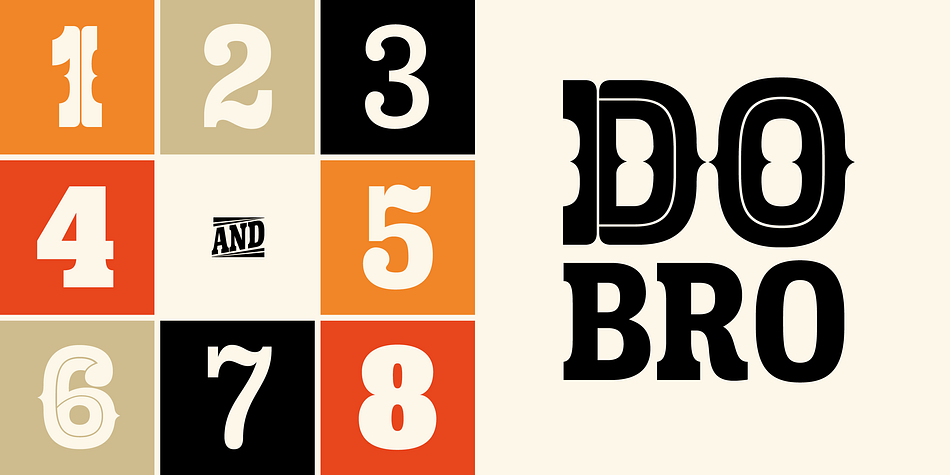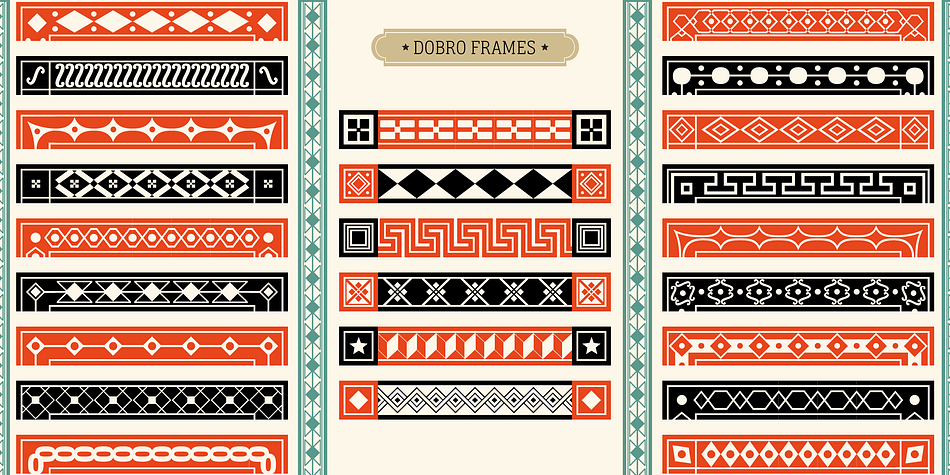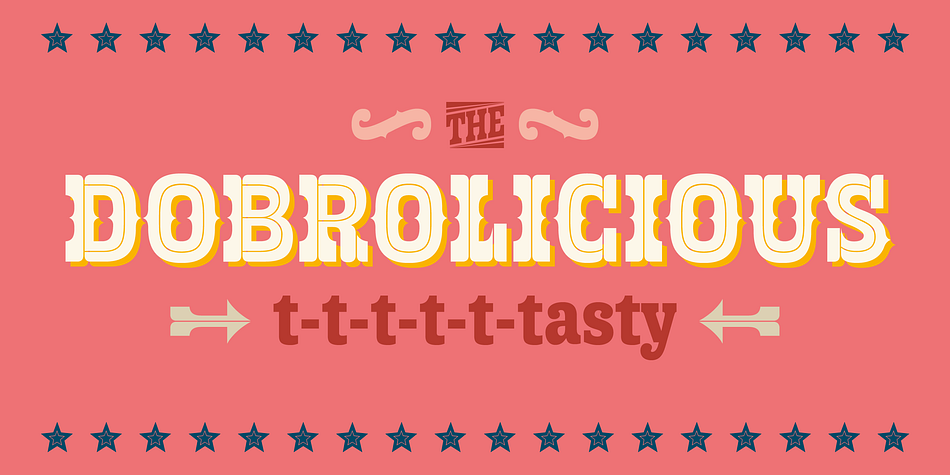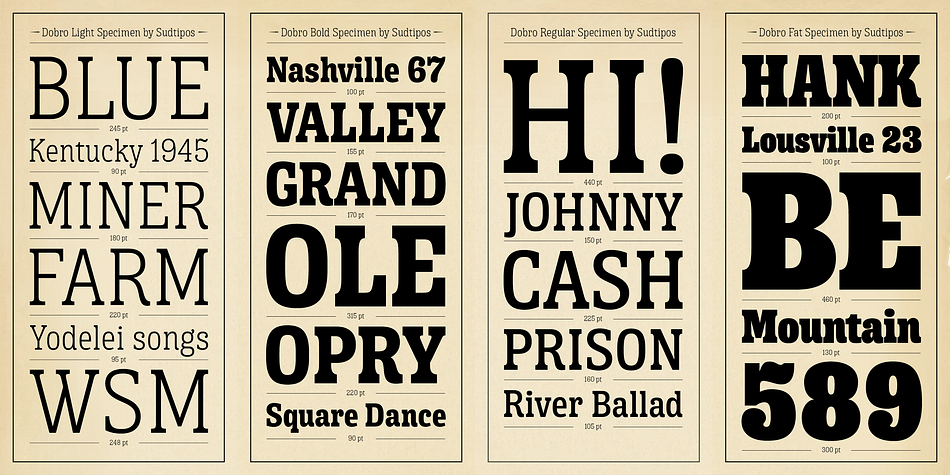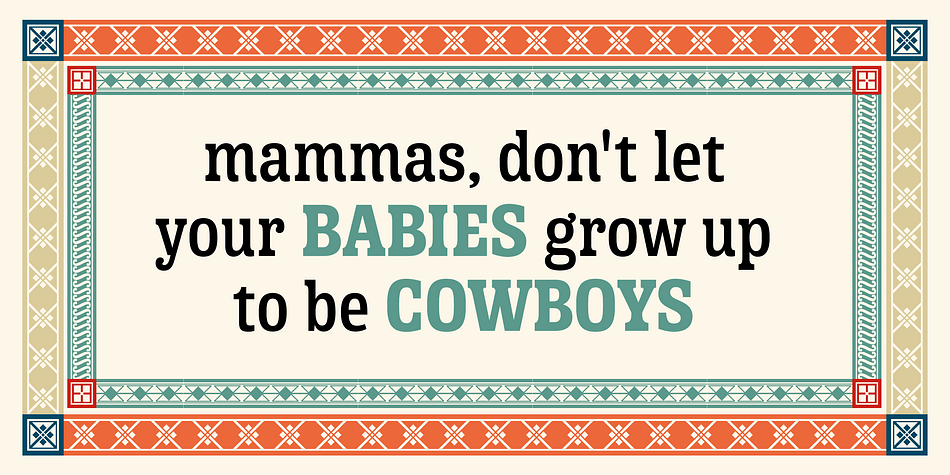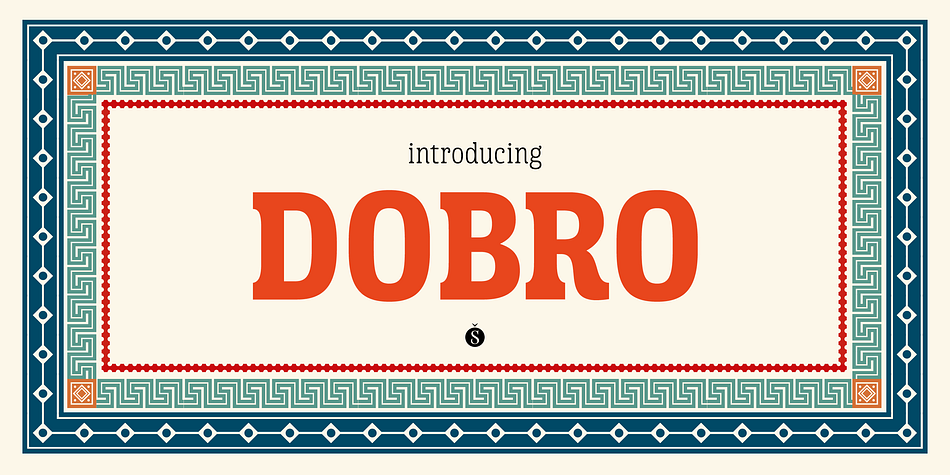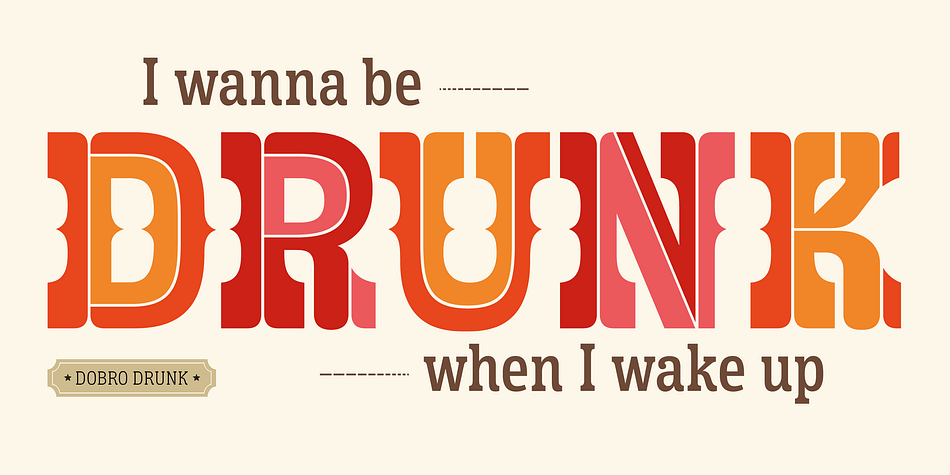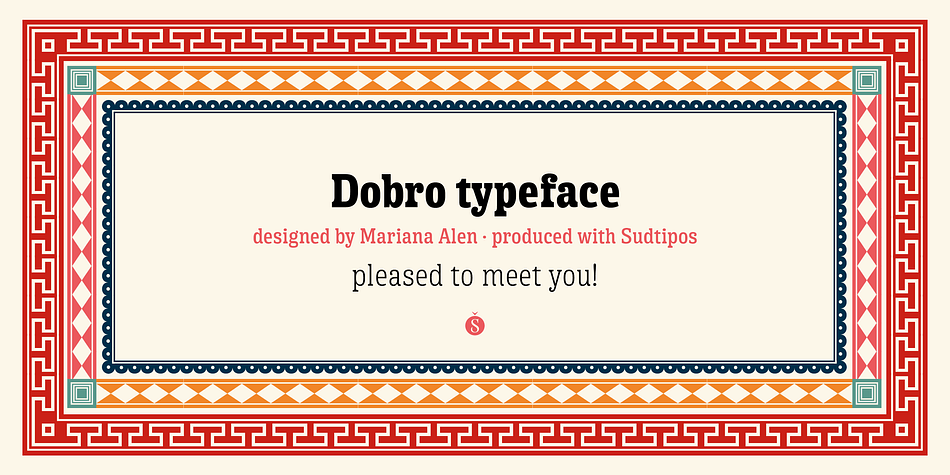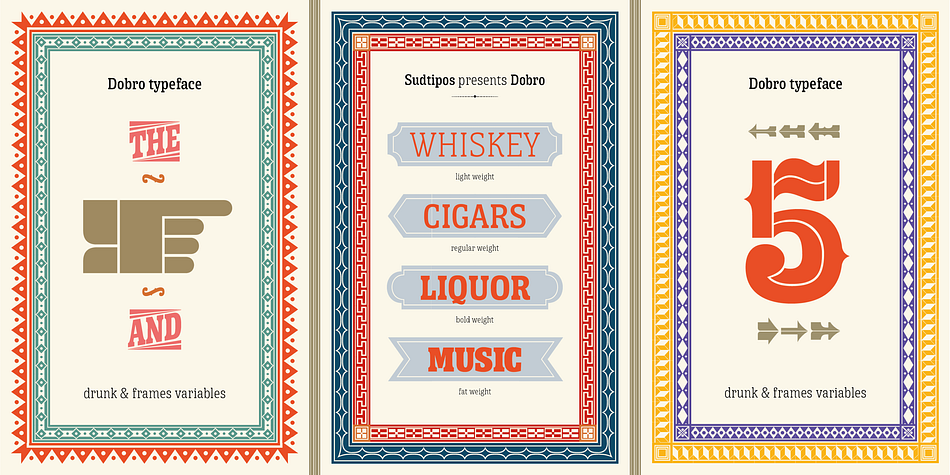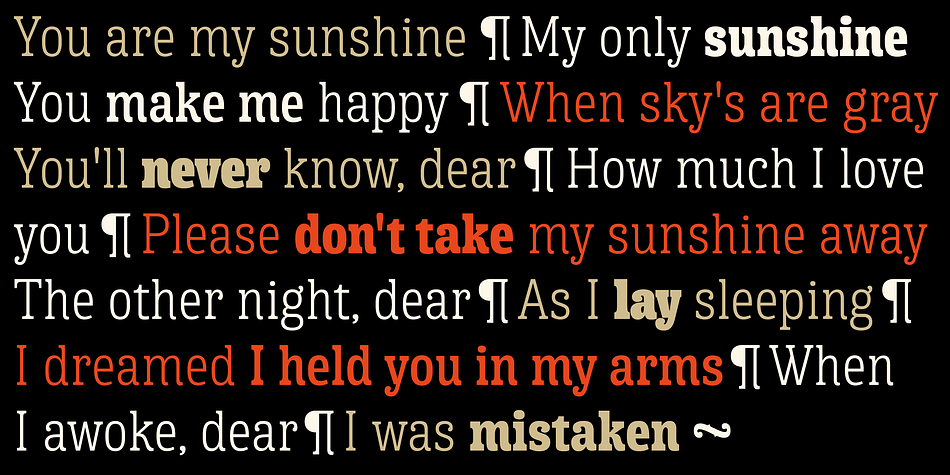
Designed by Mariana Alen, Dobro is a slab serif, western and dingbat font family. This typeface has seven styles and was published by Sudtipos.
Strings vibrating against wood. Counterpoints. Strong beated rhythms and smooth flexible melodies. Repetitive sequences and syncopations. Sweeps and slides. Folk and tradition.
That’s how Dobro sounds.
Inspired by the spirit of bluegrass music and the aesthetic of its wood type gig posters,this typeface explores certain concepts of rhythm and seeks to translate a piece of this universe into writing.
Meant to be used in large sizes, Dobro is a 6-font set designed to work nicely together. It comes in 4 different weights, one color font with miscellaneous and connectors, plus frames and borders that pay tribute to vintage wood type catalogues.
As an old company motto used to say: “Dobro means good in any language!”